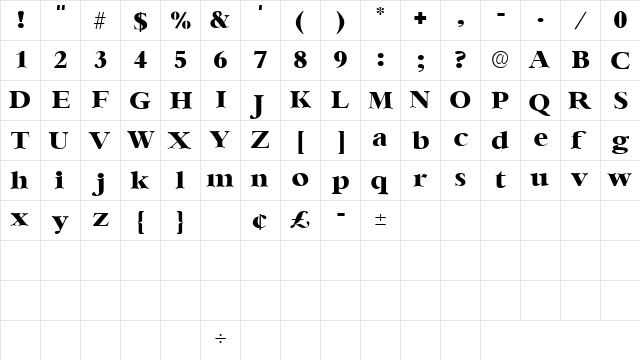
IngenueSSK Regular
Design Context for IngenueSSK Typeface
IngenueSSK takes a measured approach to typography — its balanced proportions and neutral character make it a reliable workhorse for both digital and print work.